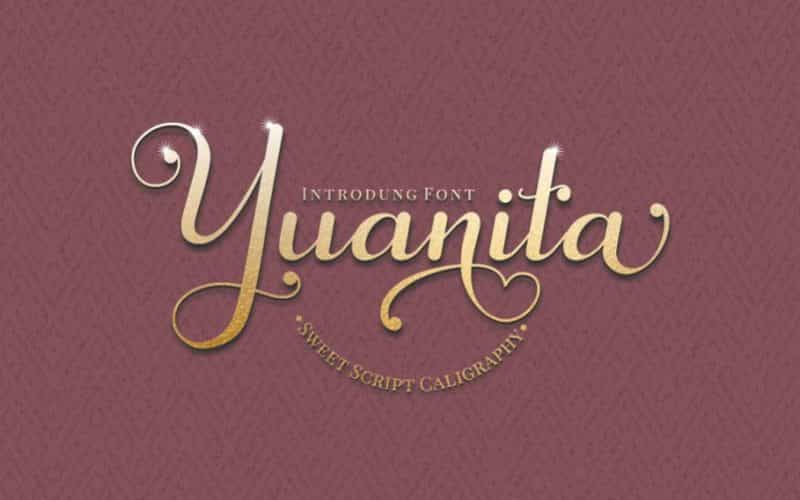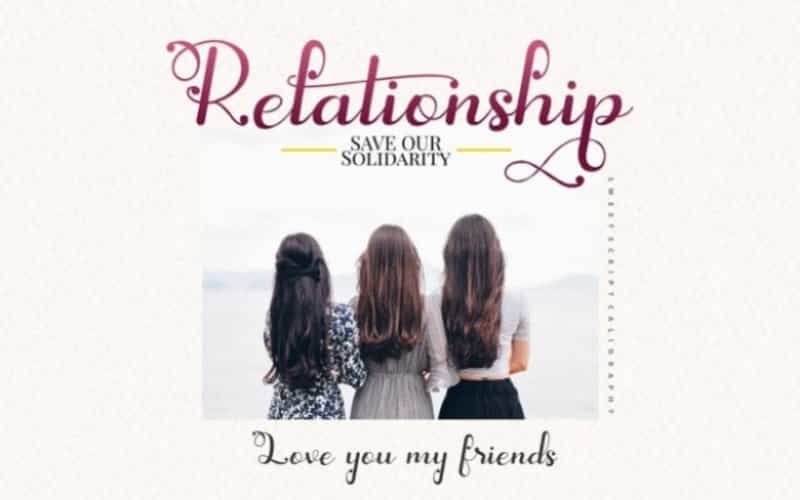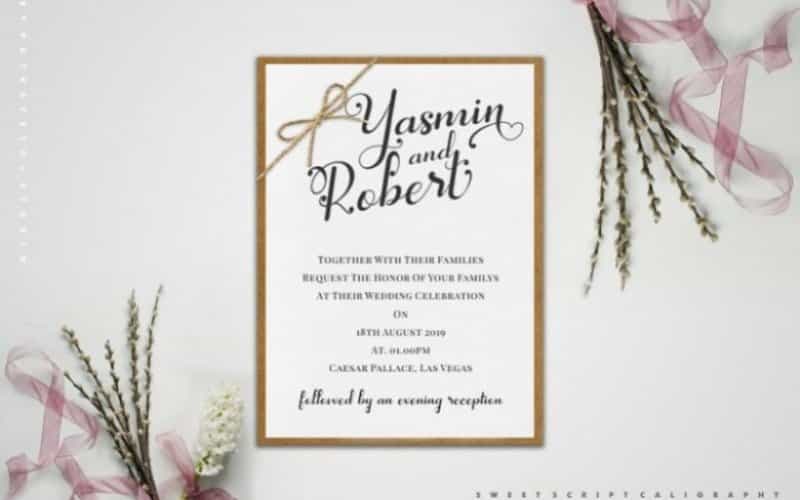
Yuanita is a very beautiful and elegant font of many styles that look contemporary and are used in the art of calligraphy. It is a beautiful jewel style calligraphy font with a modern look for today’s updates. This font is fresh and delicate but at the same time feminine, neat and sometimes disorderly and in the same time even minimalistic.